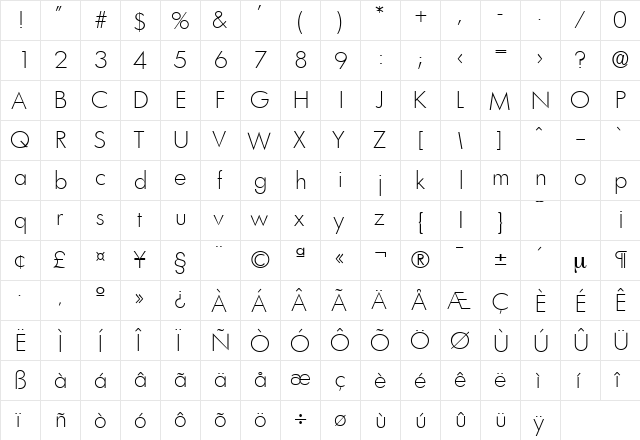
Limerick-Serial-ExtraLight Extra Light
Design Context for Limerick-Serial-ExtraLight Typeface
Limerick-Serial-ExtraLight takes a measured approach to typography — its balanced proportions and neutral character make it a reliable workhorse for both digital and print work. The delicate stroke weight brings airiness and refinement to layouts.